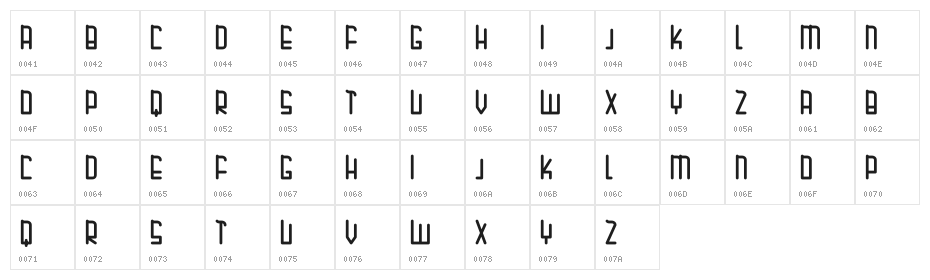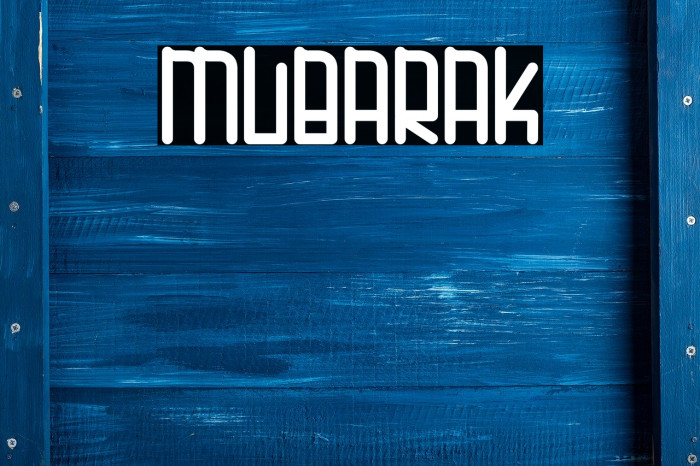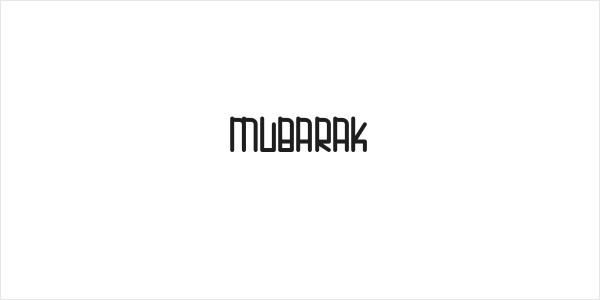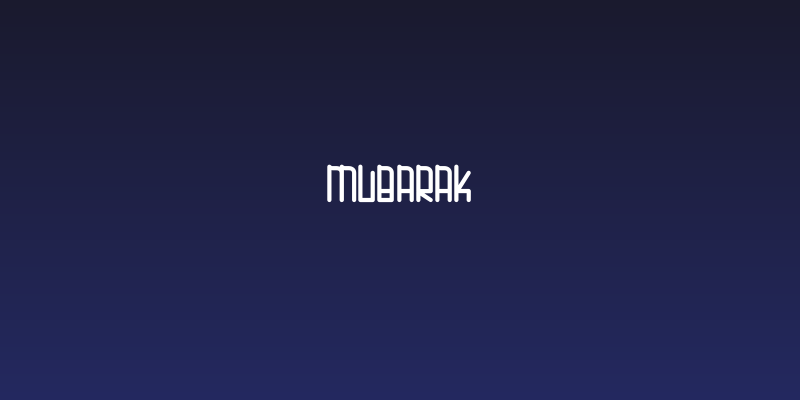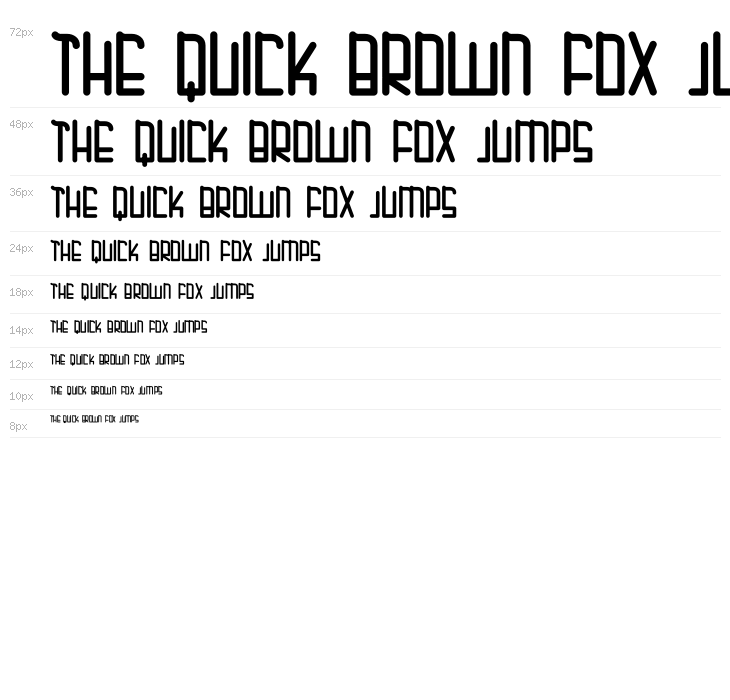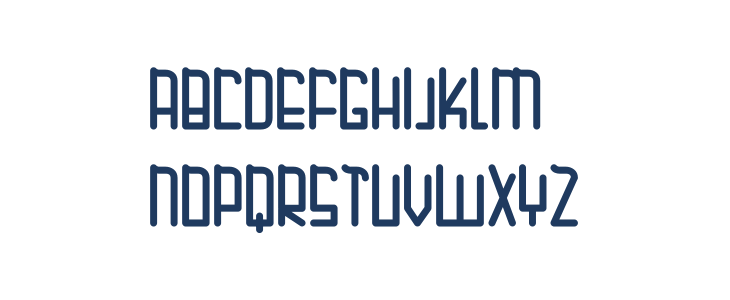
MUBARAK Font
MUBARAK Description
This font features a unique, geometric design with rounded edges and a consistent stroke width, giving it a modern and futuristic appearance. The characters are uniform in height and width, creating a harmonious and balanced look. The font's structure is clean and minimalistic, with a focus on readability and simplicity. The absence of serifs and the uniformity in line thickness contribute to its contemporary style. It is well-suited for digital displays and projects that require a sleek and modern aesthetic.
| Use Case | Headlines, Logos, Digital displays |
| Proposed Projects | Ideal for digital interfaces, tech branding, modern advertising, and futuristic design projects. |